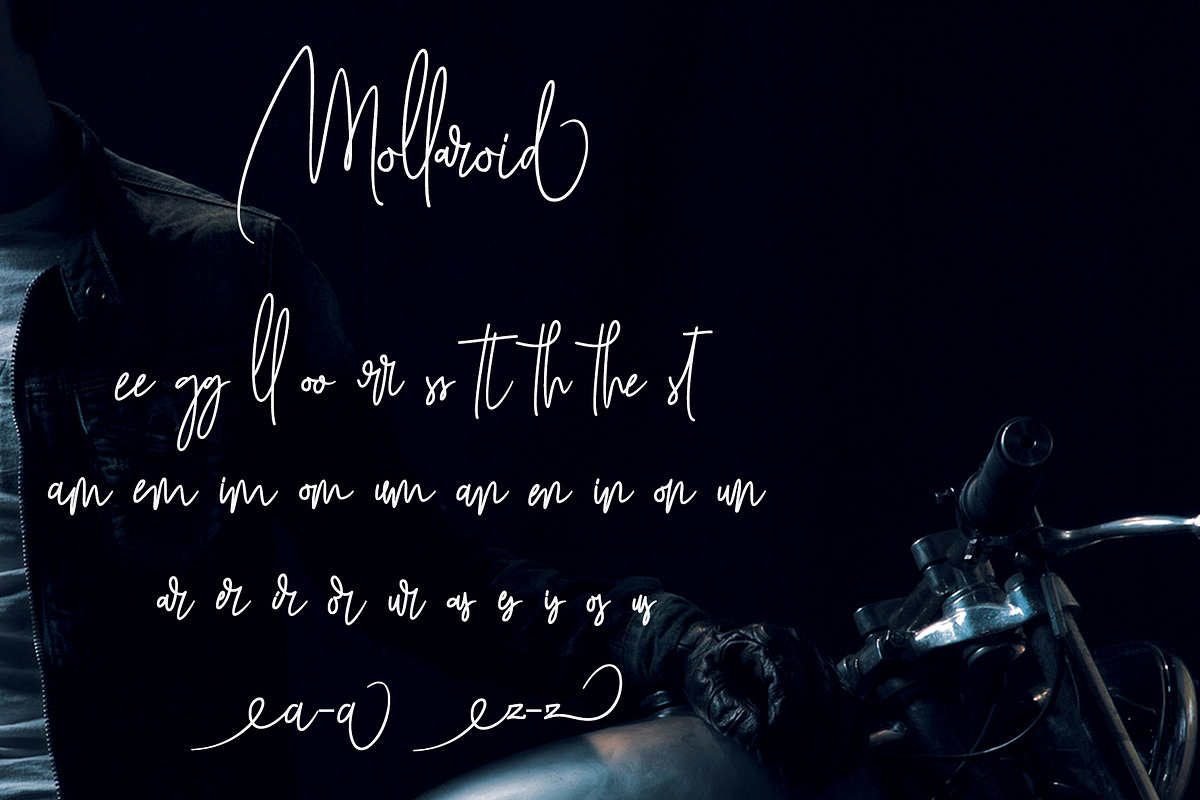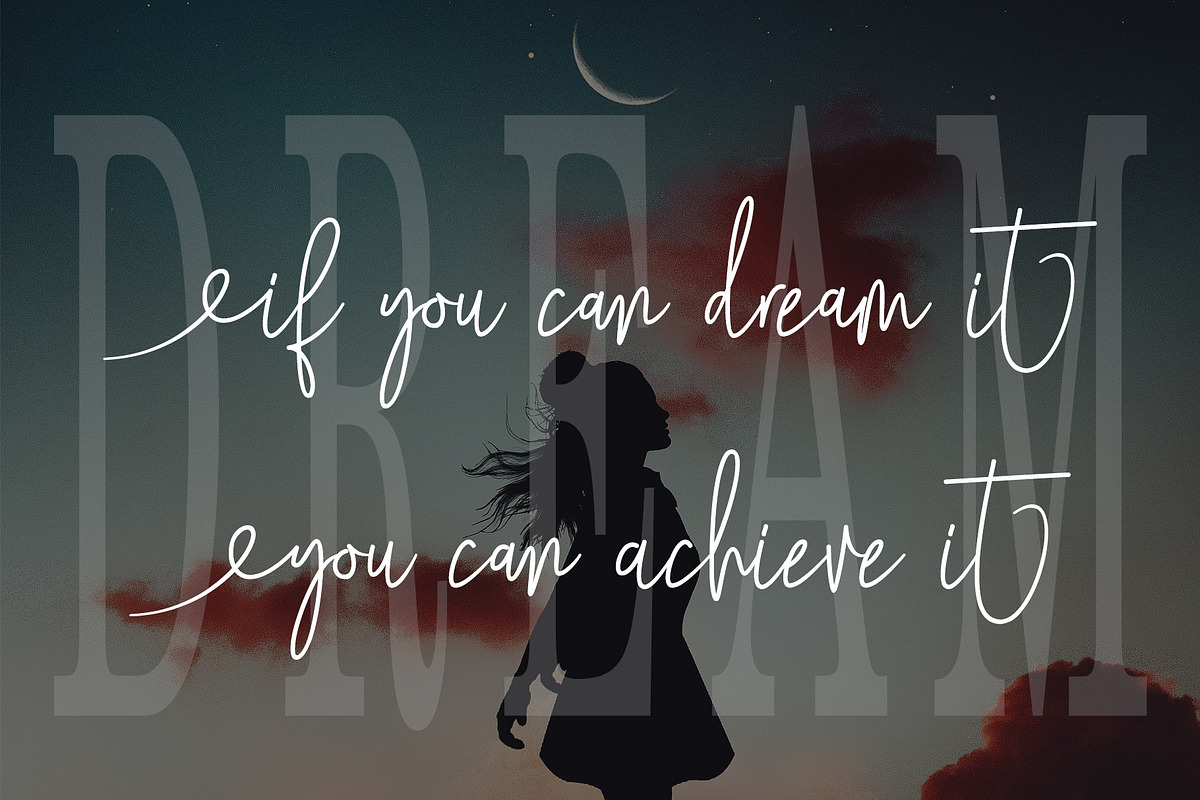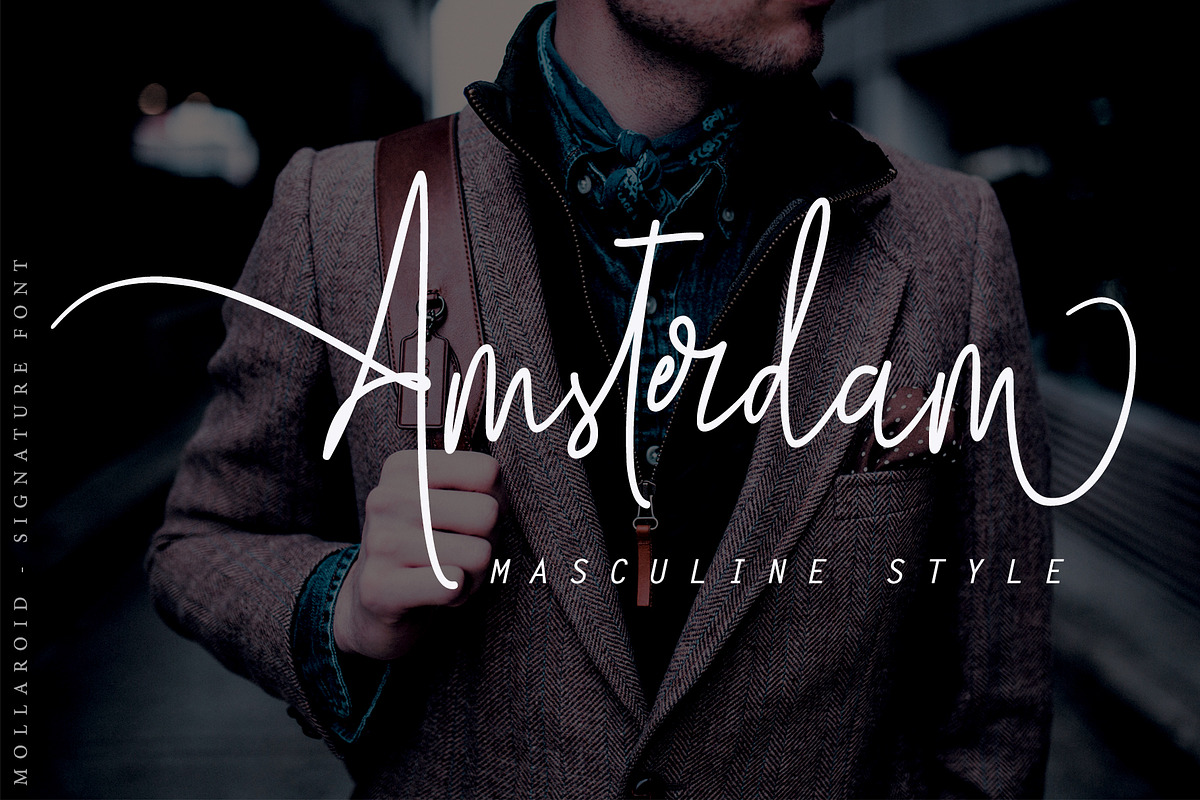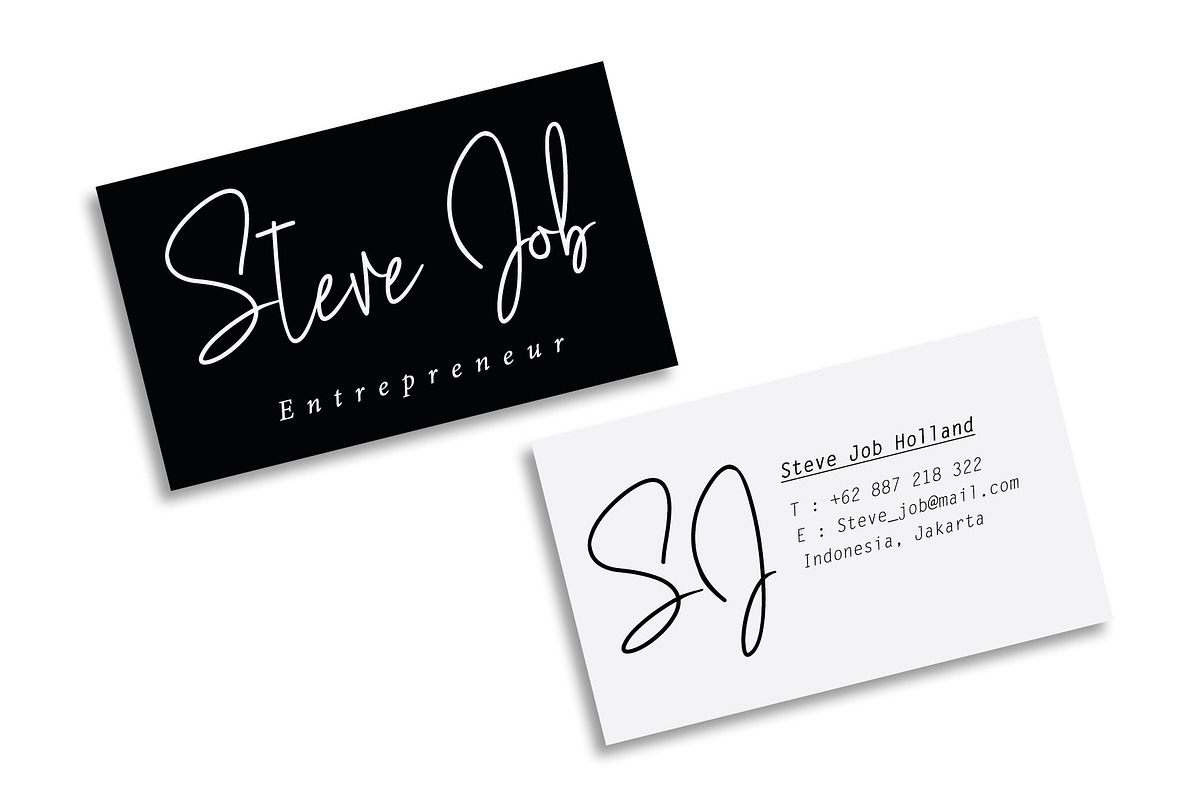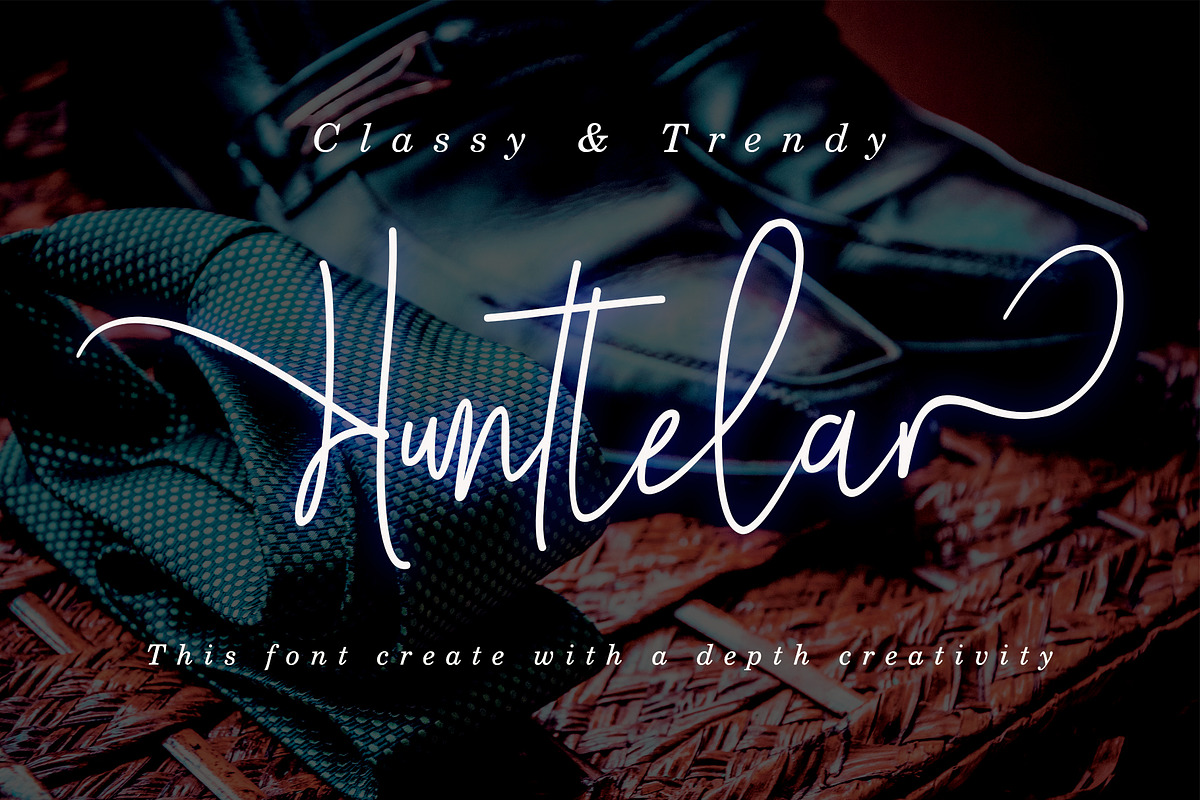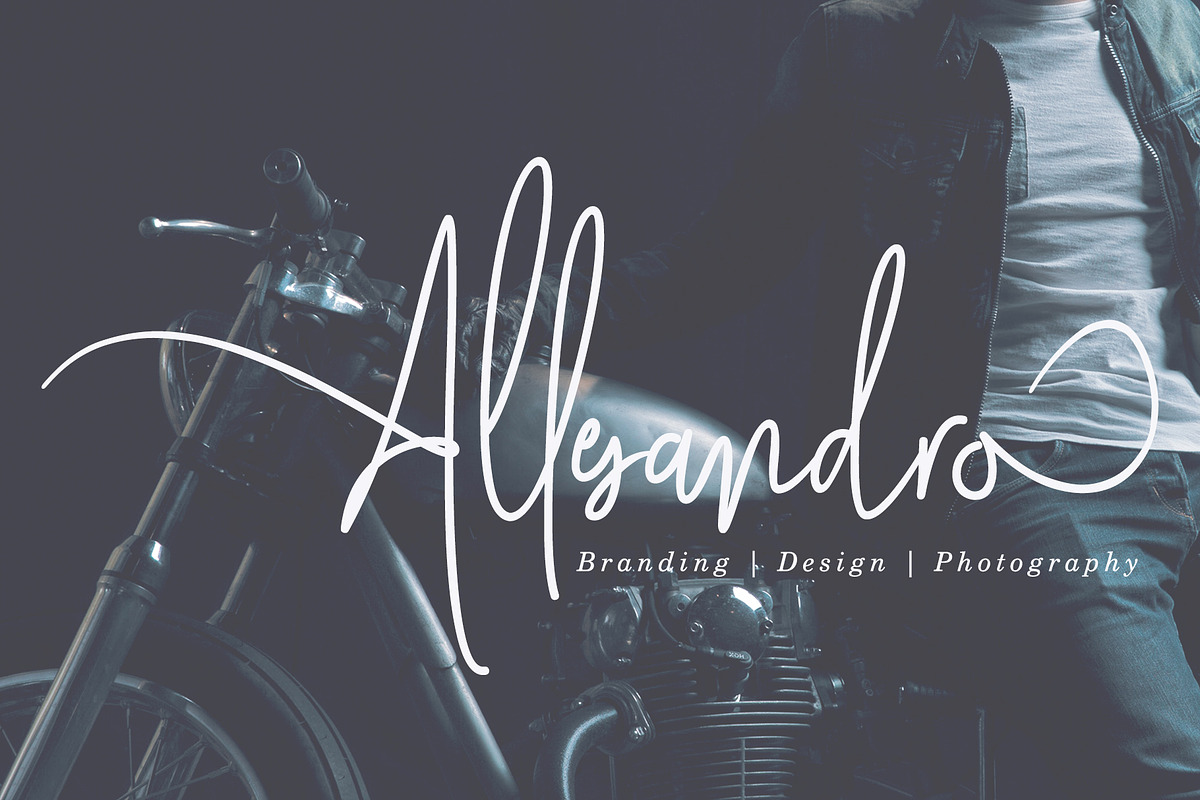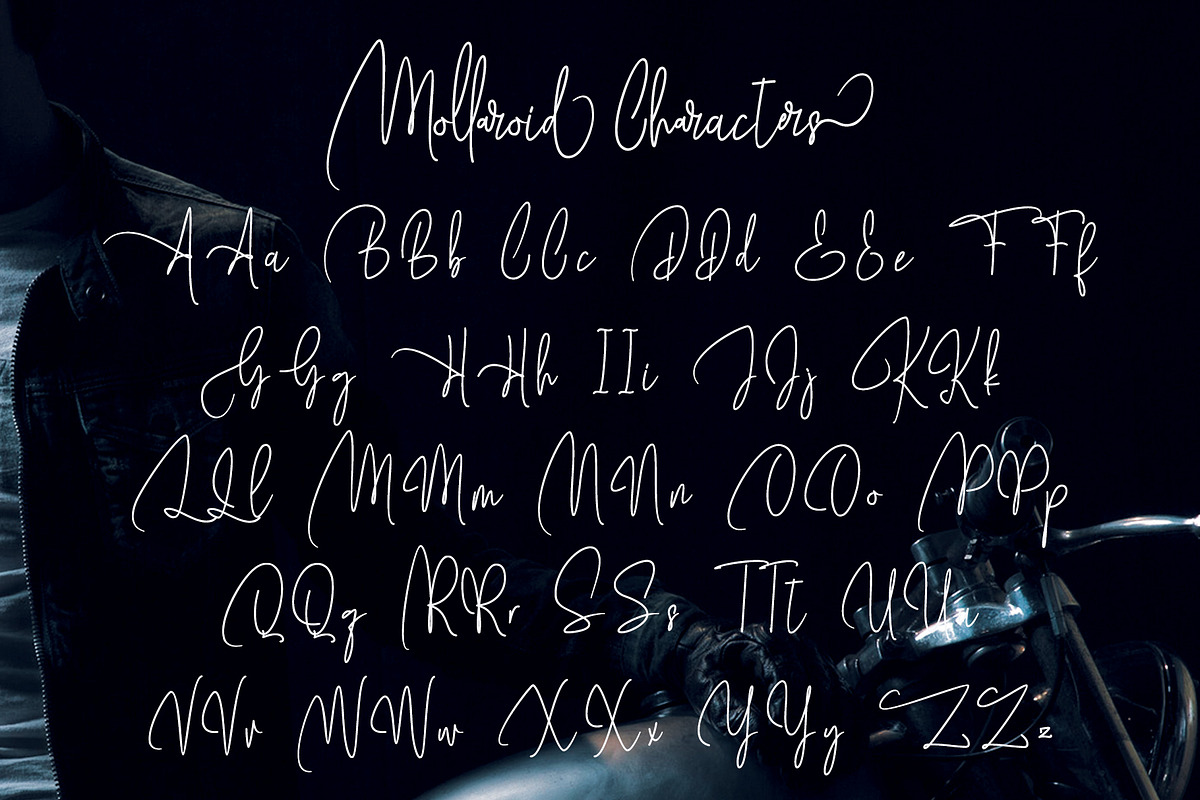
Mollaroid | Signature Font
Mollaroid - Signature Font - A stylish and quirky new signature font script. Mollaroid font was created to look as close to a natural handwritten script as possible by including over a lot ligatures, titling, and swash.
This font is for those who want to show something smooth and modern. You may use this font if you want to attract modern buyers. The font design seems to show that you have a passion in the business and give your love to the products and services you are offered to customers.
Because it is an eye-catching signature font, you can use it for a variety of purposes including design, branding, signature, logo, poster, and many more.
- Mollaroid font was created to look as close to a natural handwritten script as possible by including over a lot ligatures, titling, and swas
Mollaroid | Signature Font by Aldedesign fits naturally into Branding, posters, packaging, typography.